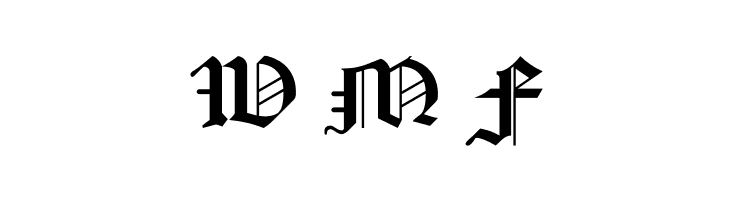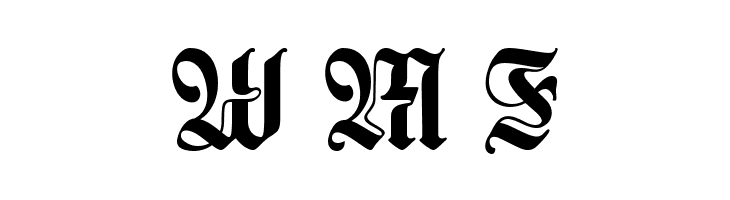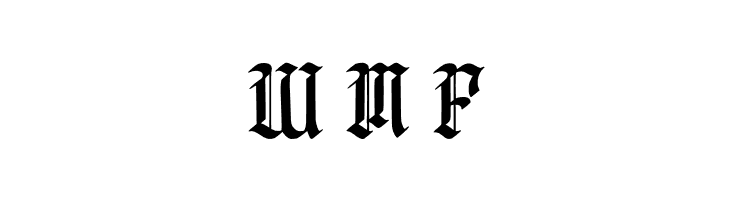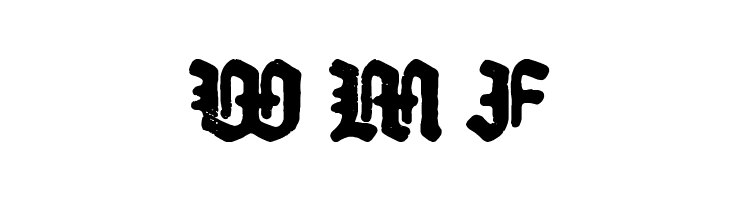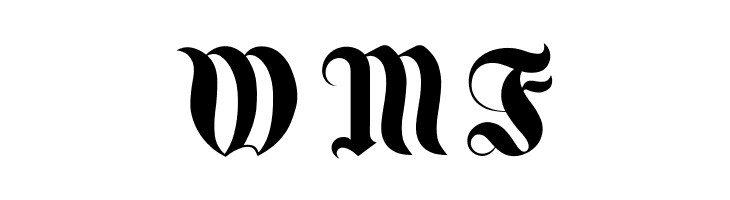
( Fonts by MaknaStudio )
A bold, gothic blackletter font with sharp, angular lines and dramatic flourishes.
( Fonts by RGB Studio )
An ornate blackletter font with intricate, historical letterforms.
( Fonts by Alit Design )
A classic blackletter font with intricate, ornate designs and a medieval aesthetic.
( Fonts by Michelle Widener )
An ornate blackletter font with gothic and medieval influences.
( Fonts by Font Monger )
A bold, gothic blackletter font with intricate detailing and a medieval aesthetic.
( Fonts by Blackletter Studio )
A bold, gothic-inspired font with intricate details and high contrast, perfect for dramatic and elegant designs.
( Fonts by Blackletter Studio )
A bold, gothic blackletter font with intricate, angular letterforms.
( Fonts by Blackletter Studio )
A bold, gothic blackletter font with intricate detailing and high contrast.
( Fonts by Blackletter Studio )
A bold, gothic blackletter font with intricate, angular strokes and ornate details.
( Fonts by Ronny Studio )
A bold, ornate Blackletter font with intricate, angular letterforms.
( Fonts by Type Factory )
A bold, blackletter font with intricate, angular letterforms and a medieval aesthetic.
( Fonts by Sharkshock )
A bold, decorative blackletter font with intricate and ornate letterforms.
( Fonts by Sebastian Kamper )
A traditional blackletter font with bold, ornate letterforms and a medieval aesthetic.
( Fonts by Din Studio )
A bold, ornate blackletter font with sharp edges and historical elegance.
( Fonts by Alit Design )
A bold, gothic blackletter font with intricate detailing.
A bold, textured blackletter-style font with a vintage, distressed look.
( Fonts by A A Ngurah A Krisna Teja )
A bold, intricate Blackletter font with high contrast and decorative elements.
( Fonts by Pau Pineiro )
An ornate Blackletter font with intricate, angular letterforms.
( Fonts by Jozef Herrebrugh )
A traditional blackletter font with bold, intricate letterforms and a historic aesthetic.
( Fonts by RGB Studio )
An ornate Blackletter font with intricate details and decorative flourishes.